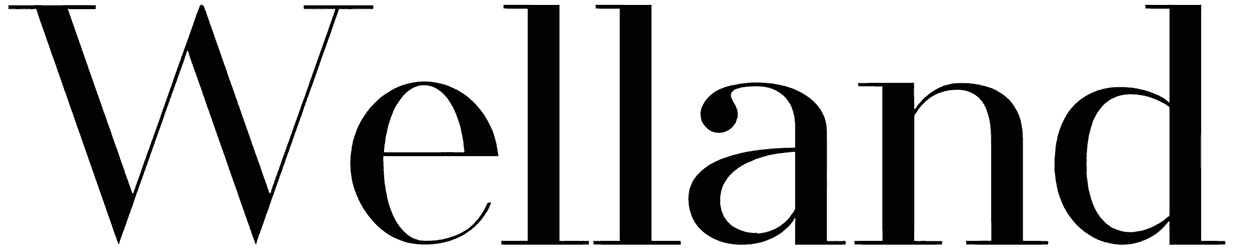
Welland Font
Welland is an artistic newspaper font that looks insanely perfect on a wide set of graphic content, such as movie posters, business cards, diplomas, invitations, and important documents. This masterpiece comes with clean shapes and accurate curves, thus adding a minimalistic touch to all of your artwork. In addition to all the aforementioned details, it carries a sense of formality, confidence, authenticity, or trustworthiness.